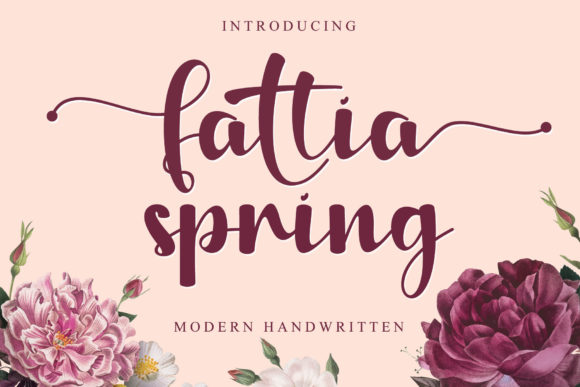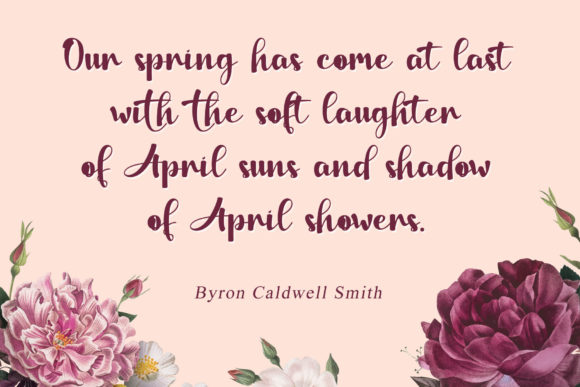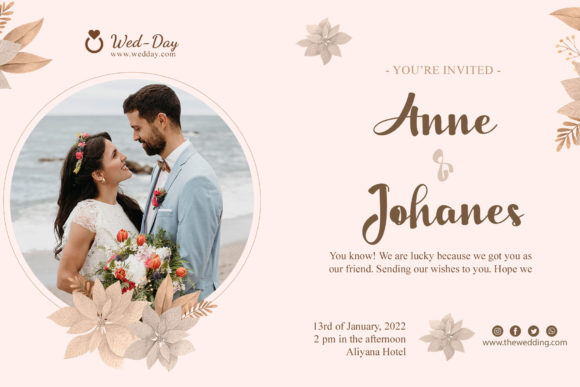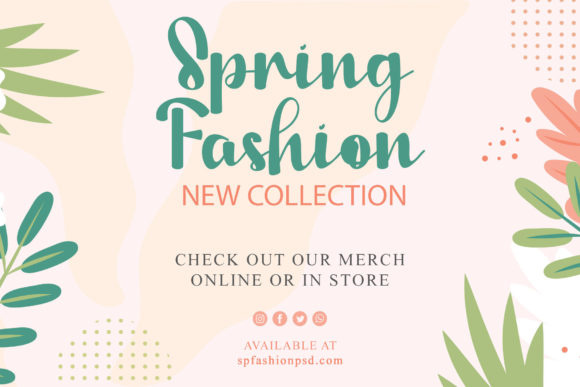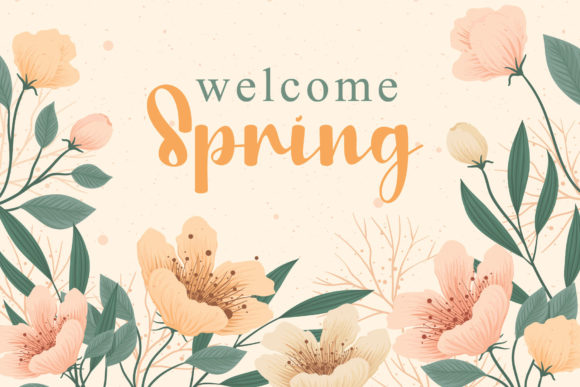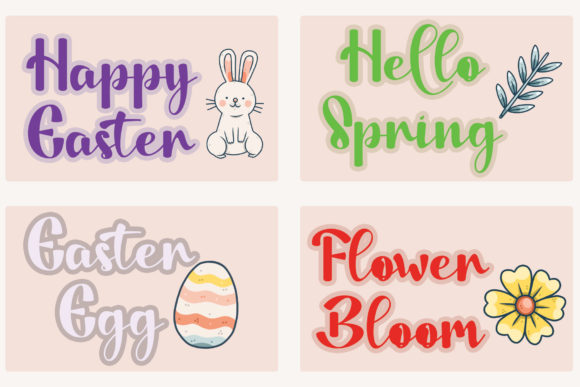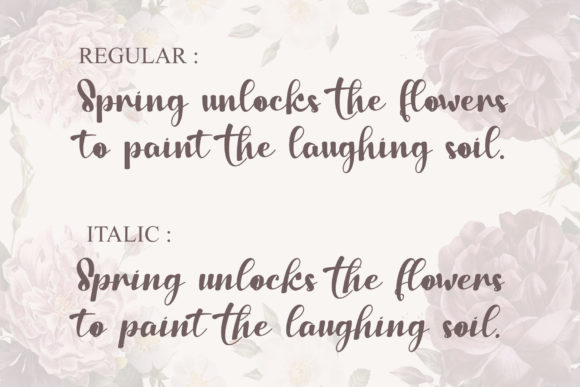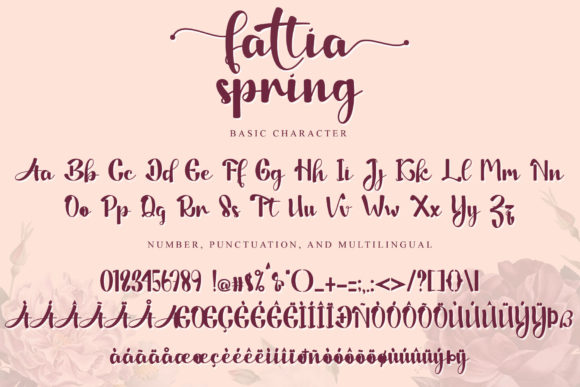
Fattia Spring Font
About Fattia Spring Font
Fattia Spring is a gorgeous script font created with delicate and sweet vibes. This font is PUA encoded which means you can access all glyphs and swashes with ease!
Celebrate spring with the beautiful Fattia Spring font!